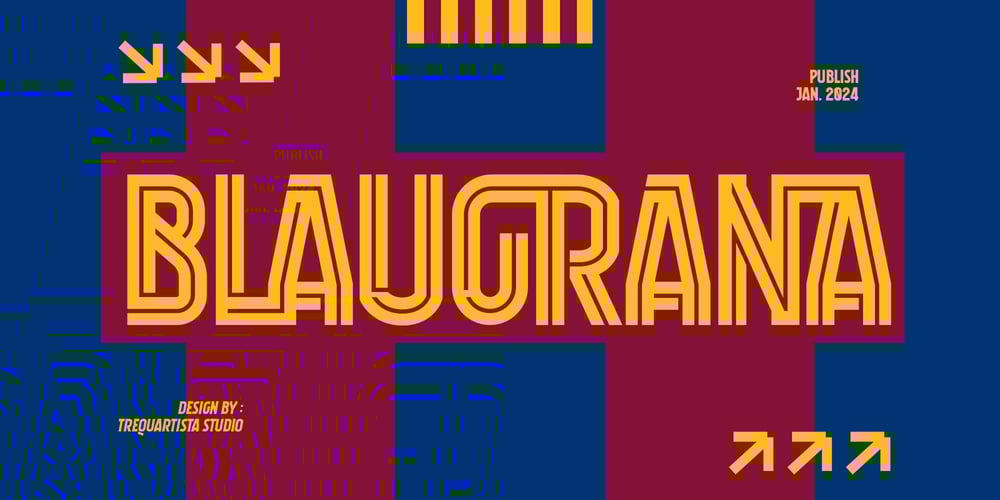
Blaugrana Font Family was designed by Muhammad Afif Ersya and published by Trequartista Studio. Blaugrana contains 5 styles and family package options. Blaugrana, a condensed sport . Specially Jersey FontInspired by Barcelona Jersey Font 2022-2024Blaugrana has 3 Style with sans serif and matching italics. This typeface has a clean and athletic look, glyphs and extensive Latin script support. Jersey Font is tall, vibrant with sharp sans serifs and competitive appearance, therefore excellent to use for headers, logos, captions and posters, especially for the sports branding industry, but just as good for any other projects.